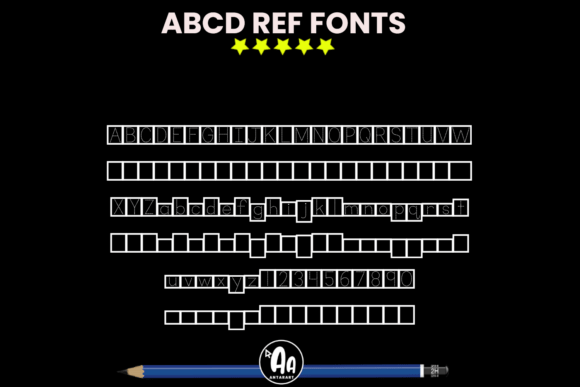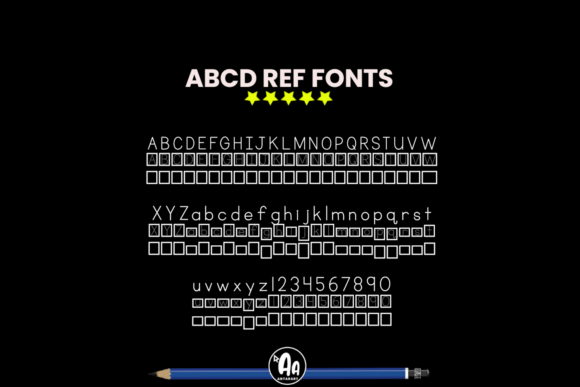
Unlocking the Power of Consistent Handwriting: 5 Advantages of the ABCD Ref Shape Boxes Font
Handwriting is a fundamental skill that every child needs to master, and having the right tools can make all the difference. The ABCD Ref Shape Boxes Font is a game-changer for early education, designed to help young learners develop consistent letter sizing, improve handwriting alignment, and enhance overall writing skills. Inspired by the D’Nealian handwriting method, this innovative font is perfect for teachers, homeschoolers, and parents seeking to provide their children with a strong foundation in handwriting.
What is the Letterbox (Shape Boxes) Method?
The Letterbox method, also known as the Shape Boxes approach, is a proven technique used to teach handwriting and writing skills. This method involves using boxes or guides to help students learn uniform letter height and spacing, improving handwriting alignment and overall writing quality. The ABCD Ref Shape Boxes Font takes this approach to the next level, providing a clear and visual guide for beginners to master proper handwriting alignment.
5 Advantages of the ABCD Ref Shape Boxes Font
-
Supports Consistent Letter Sizing
The ABCD Ref Shape Boxes Font ensures that letters are written with uniform height and spacing, making it easier for students to develop muscle memory and write legibly. This consistency is crucial for young learners, as it helps them recognize and write letters with confidence.
-
Improves Handwriting Alignment
The font’s clear top, middle, and bottom zones serve as a guide for students to align their letters, teaching line awareness and promoting better handwriting. This feature is especially helpful for students who struggle with writing on the line or maintaining consistent spacing.
-
Visual Guide for Beginners
The ABCD Ref Shape Boxes Font provides a visual guide for beginners, helping them understand the correct placement of letters within the lines. The clear top, middle, and bottom zones make it easy for students to recognize the zones and write letters accordingly.
-
Perfect for Early Writers
This font is specifically designed for early writers, making it an ideal tool for Pre-K to Grade 2 students. The Letterbox method and visual guides help young learners develop proper handwriting habits, setting them up for success in their writing journey.
-
Print-Ready & Classroom Friendly
The ABCD Ref Shape Boxes Font is print-ready and classroom-friendly, making it easy to use in worksheets, flashcards, and other educational materials. Teachers and homeschoolers can use this font to create engaging and effective handwriting practice activities that cater to different learning styles.
Using the ABCD Ref Shape Boxes Font in Education
The ABCD Ref Shape Boxes Font is a versatile tool that can be used in various educational settings, including:
- Early education worksheets
- Tracing activities
- Structured handwriting practice for phonics instruction
- Elkonin boxes
- Spelling practice
- Word mapping
- Sound boxes
Teachers and homeschoolers can use this font to create customized handwriting practice materials that cater to the needs of their students. By incorporating the ABCD Ref Shape Boxes Font into their teaching resources, educators can help students develop consistent handwriting habits, improve letter formation, and enhance overall writing skills.
| Font Name | Abcd Ref Shape Boxes Font |
| Author | AntarArt |
The ABCD Ref Shape Boxes Font is a valuable resource for early education, offering a range of benefits that can help young learners develop consistent handwriting habits and improve their overall writing skills. With its clear visual guides, uniform letter sizing, and classroom-friendly design, this font is an excellent addition to any educational setting. Whether you’re a teacher, homeschooler, or parent, the ABCD Ref Shape Boxes Font is an effective tool to support your child’s handwriting journey.